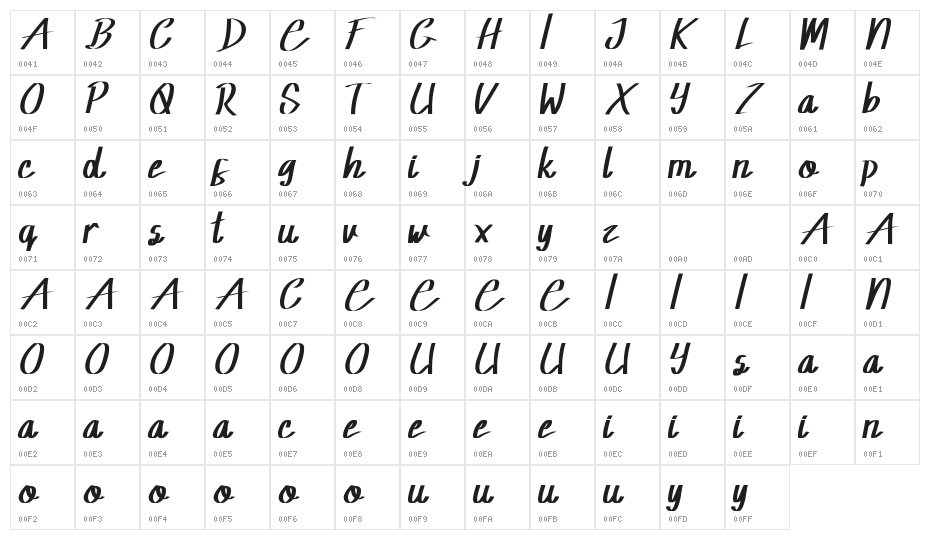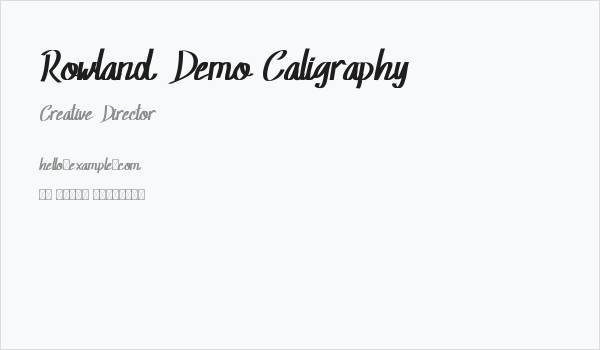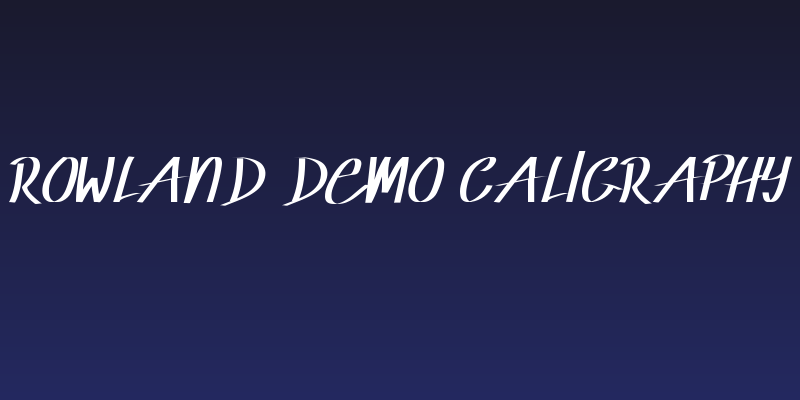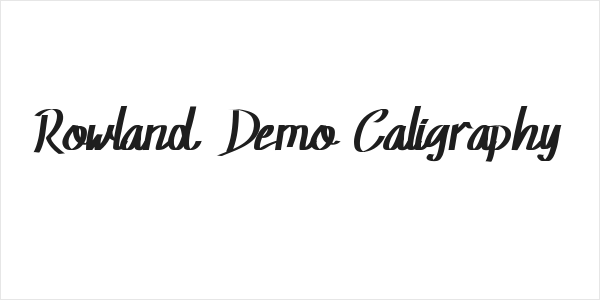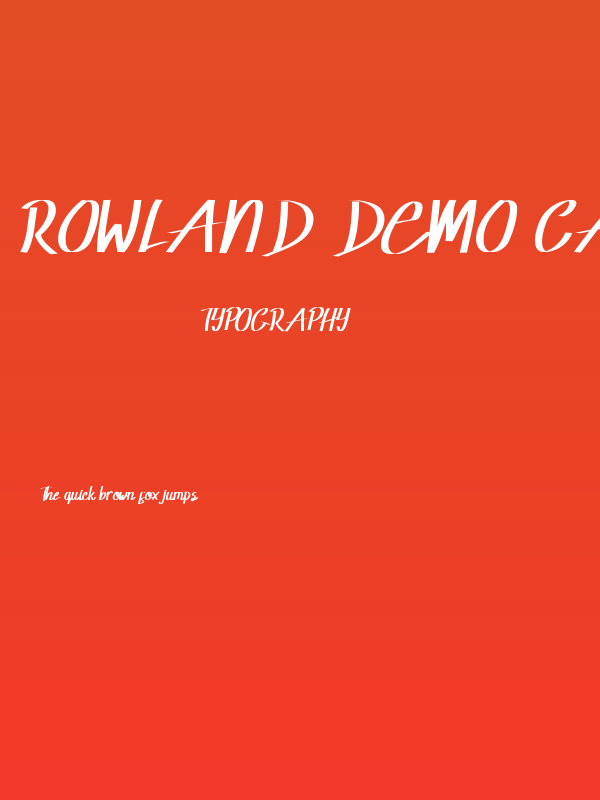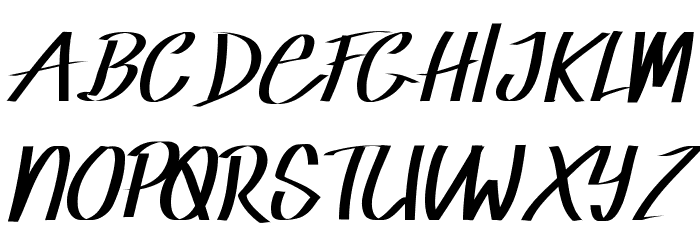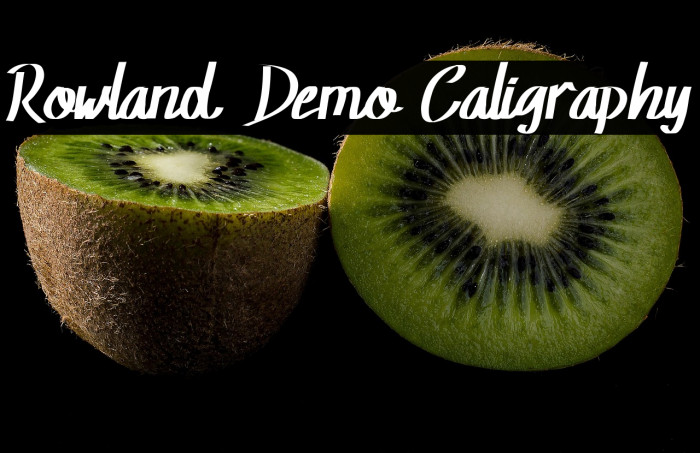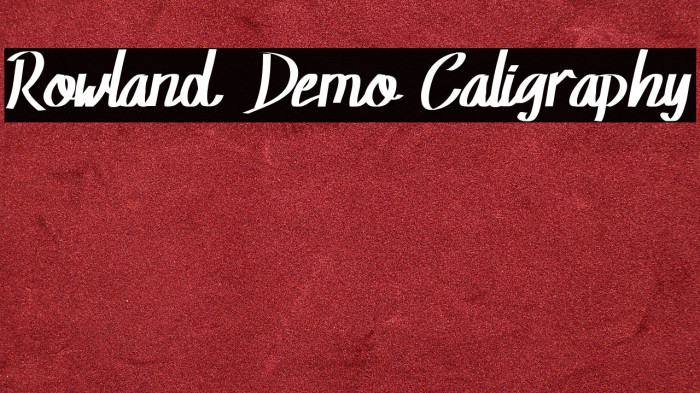
Rowland Demo Caligraphy Font
Rowland Demo Caligraphy Description
This font exhibits a dynamic and flowing calligraphic style, characterized by its elegant and artistic strokes. The uppercase letters are bold and sweeping, with a distinct slant that adds a sense of motion and fluidity. The lowercase letters maintain this fluidity with a slightly more compact form, offering a harmonious balance between the characters. The font's overall appearance is both sophisticated and expressive, making it ideal for projects that require a touch of elegance and creativity. The characters are well-defined, with a medium contrast in stroke thickness, enhancing readability while preserving the artistic flair.
| Overall Style | Elegant, Artistic |
| Use Case | Headlines, Invitations, Artistic projects |
| Proposed Projects | Ideal for wedding invitations, greeting cards, branding, and artistic projects that require a touch of elegance. |